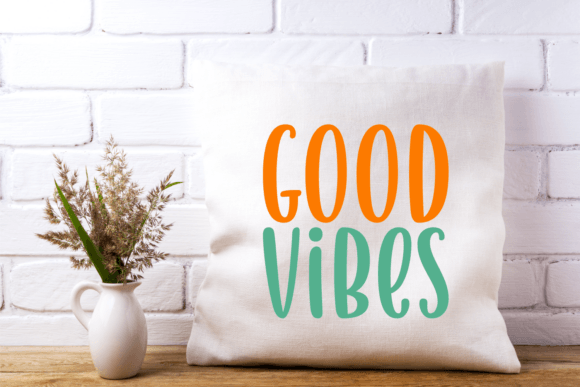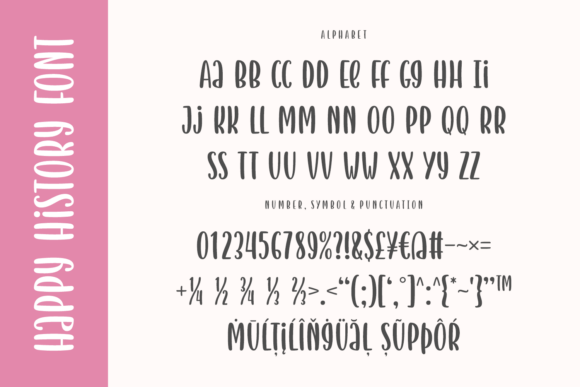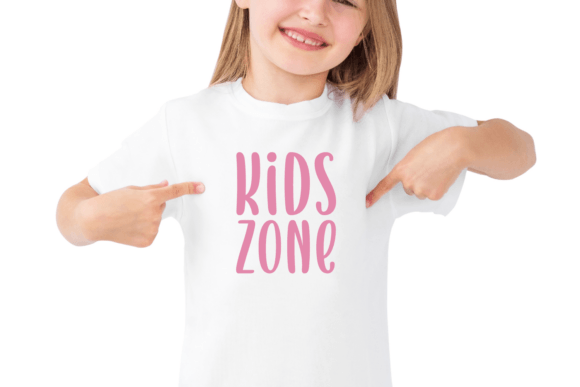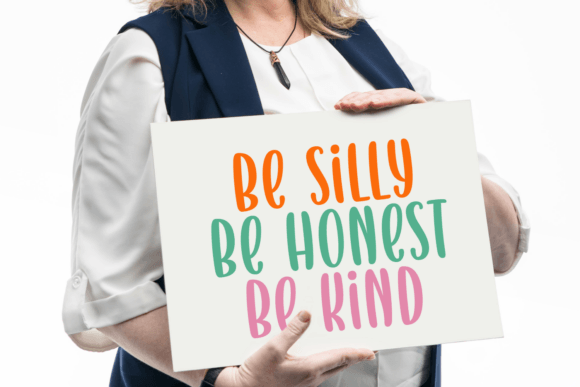
Introducing Happy History Font: The Perfect Blend of Vintage Charm and Modern Simplicity
Are you a designer or crafter looking for a unique and versatile font to add a personal touch to your creative projects? Look no further than Happy History Font, a cheerful and casual handwritten font that combines the best of both worlds – vintage charm and modern simplicity.
The Characteristics of Happy History Font
Happy History Font is a beautifully crafted font that boasts playful curves and smooth strokes, evoking a sense of nostalgia while remaining fresh and modern. Its casual and handwritten style makes it perfect for a wide range of creative projects, from invitations and journaling to branding and packaging.
One of the standout features of Happy History Font is its ability to add warmth and personality to any design. Its unique blend of vintage and modern elements creates a distinctive look that is sure to capture the attention of your audience and leave a lasting impression.
Uses for Happy History Font
Happy History Font is an incredibly versatile font that can be used in a variety of creative projects. Here are just a few ideas to get you started:
- Invitations: Whether you’re planning a wedding, birthday party, or baby shower, Happy History Font is the perfect choice for creating beautiful and eye-catching invitations.
- Journaling: Add a personal touch to your journal or diary with Happy History Font. Its playful and cursive style makes it perfect for writing, doodling, or scrapbooking.
- Branding: Happy History Font is also an excellent choice for branding and packaging. Its unique and memorable style will help your business stand out and establish a strong visual identity.
Why Choose Happy History Font?
So why choose Happy History Font over other fonts on the market? Here are just a few reasons why designers and crafters love this font:
- Unique and distinctive: Happy History Font has a one-of-a-kind style that will set your designs apart from the crowd.
- Versatile: This font can be used in a wide range of creative projects, from digital designs to print materials.
- Easy to read: Despite its playful and cursive style, Happy History Font is easy to read and understand, making it perfect for body text and headlines.
- High-quality: Happy History Font is a high-quality font that is designed to deliver exceptional results, whether you’re working on a digital or print project.
Tips for Using Happy History Font
Here are a few tips for getting the most out of Happy History Font:
- Experiment with different sizes: Happy History Font looks great in a variety of sizes, from small and delicate to large and bold.
- Pair with other fonts: Try pairing Happy History Font with other fonts to create a unique and eye-catching combination.
- Use in combination with images: Happy History Font looks great in combination with images, illustrations, and other graphics.
- Don’t be afraid to get creative: Happy History Font is a versatile font that can be used in a wide range of creative projects. Don’t be afraid to experiment and try new things!
In conclusion, Happy History Font is a unique and versatile font that is perfect for designers and crafters looking to add a personal touch to their creative projects. Its playful curves and smooth strokes evoke nostalgia while remaining fresh and modern, making it perfect for invitations, journaling, branding, and more.